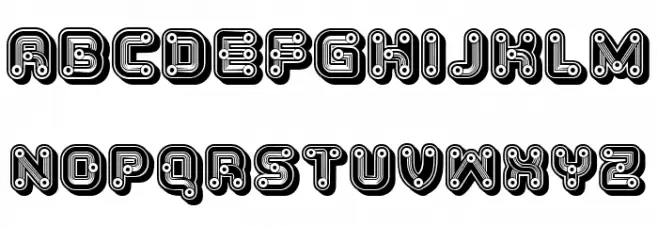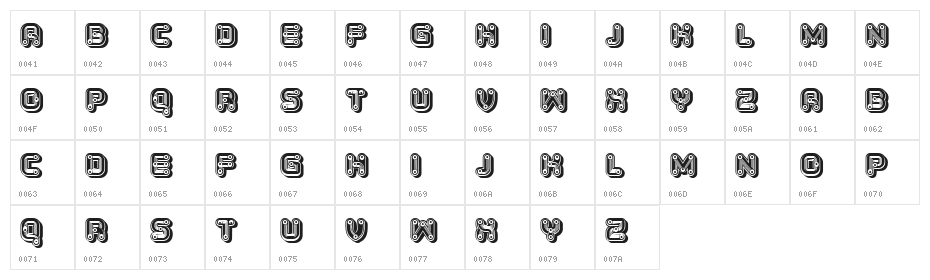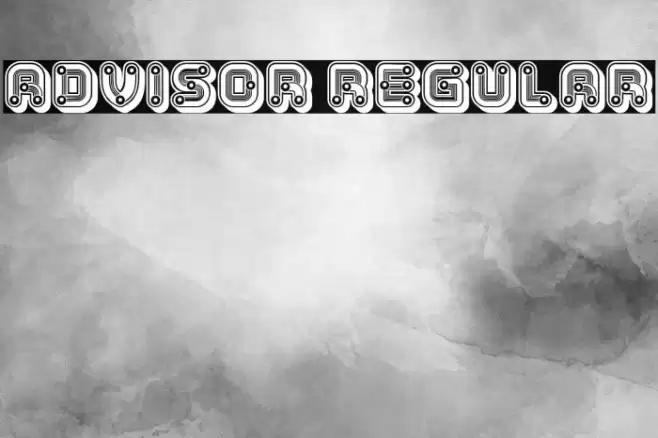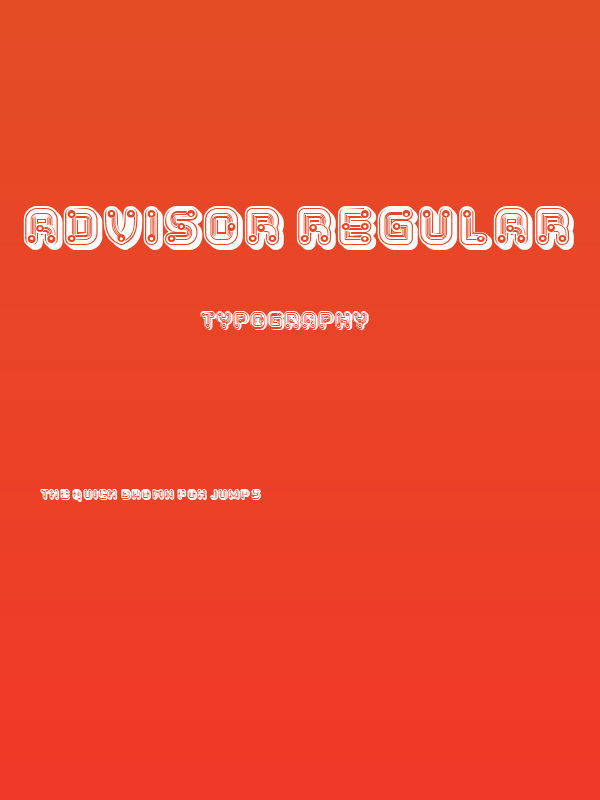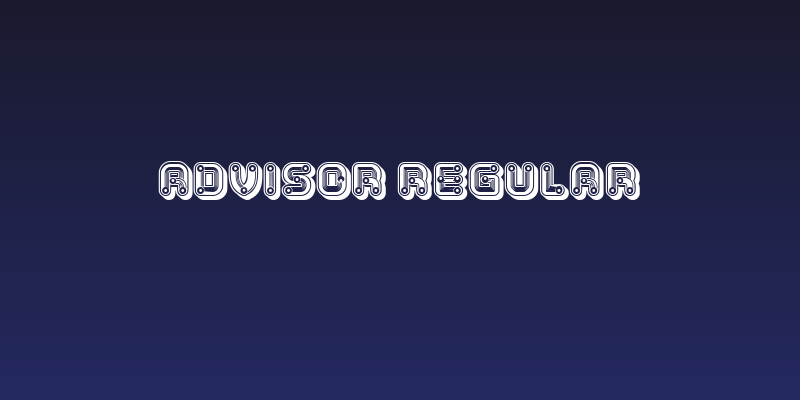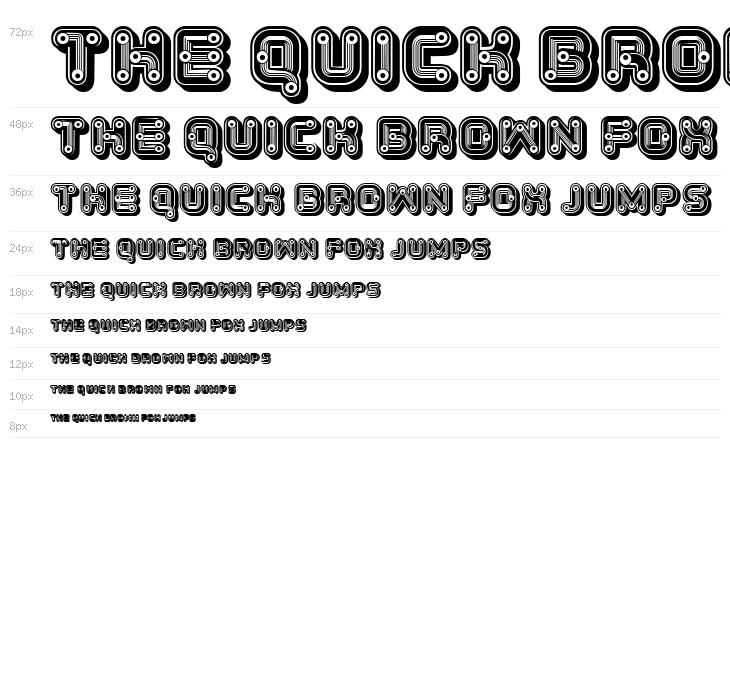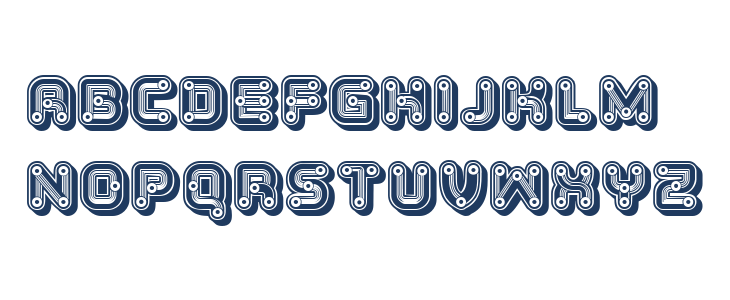
Advisor Regular Font
Advisor Regular Description
This font features a bold, decorative style with a futuristic and digital aesthetic. Each character is composed of multiple layers, creating a three-dimensional effect with intricate line work and circular accents. The design is reminiscent of circuit boards or technological interfaces, making it ideal for projects that require a modern and tech-savvy appearance. The bold outlines and detailed inner patterns give it a striking presence, suitable for attention-grabbing headlines or logos. Its unique style sets it apart from traditional fonts, offering a creative and innovative look.
| Overall Style | Modern, Futuristic |
| Proposed Projects | Ideal for technology-themed posters, sci-fi book covers, video game titles, and innovative branding. |